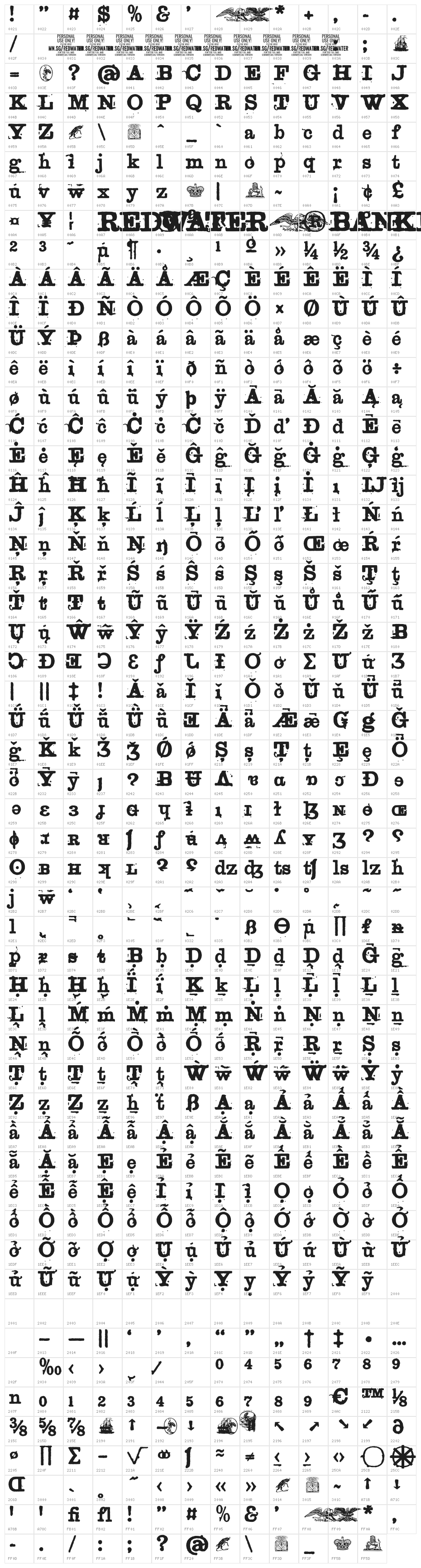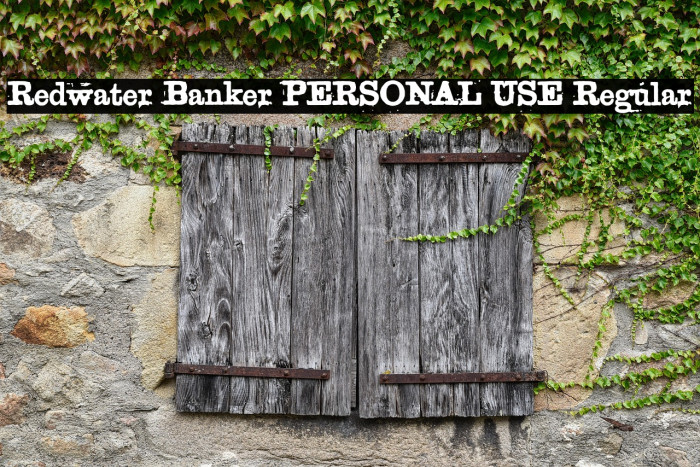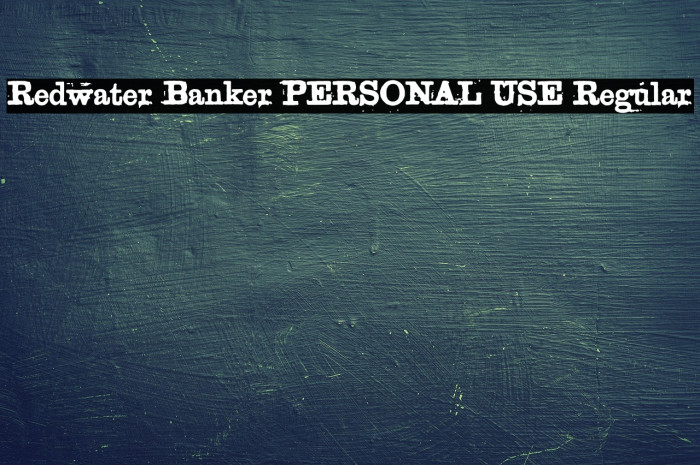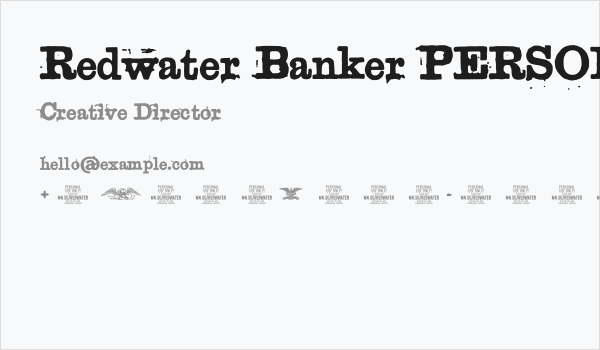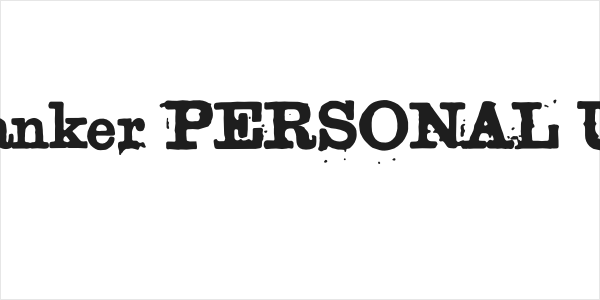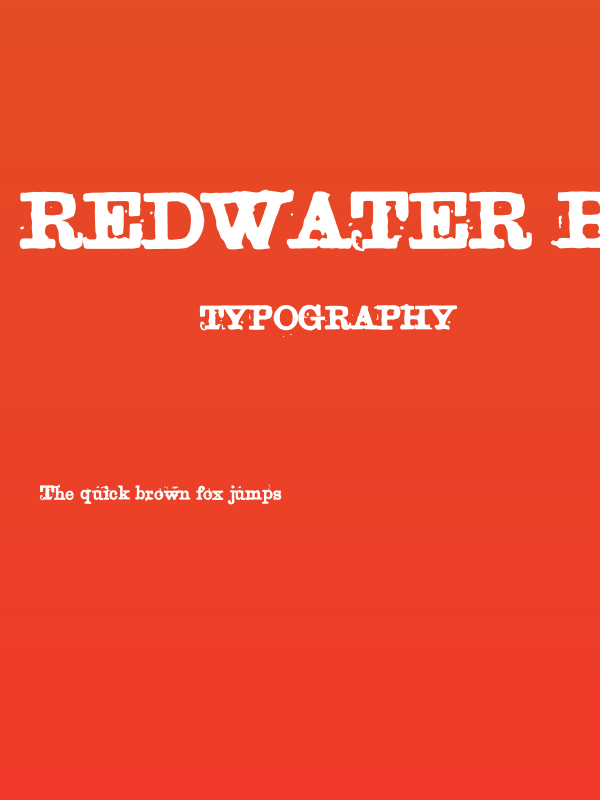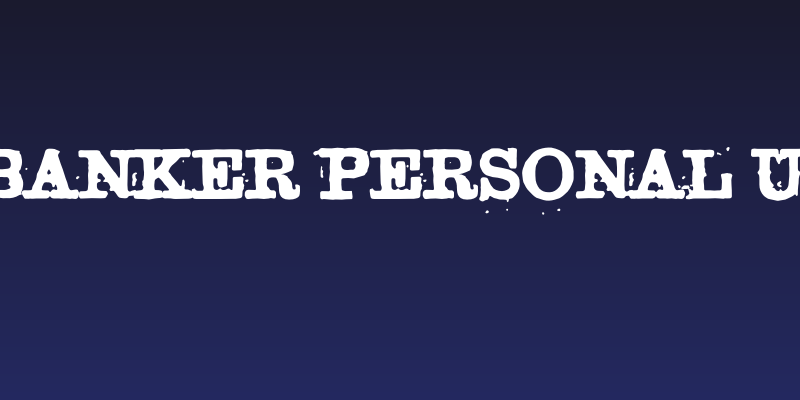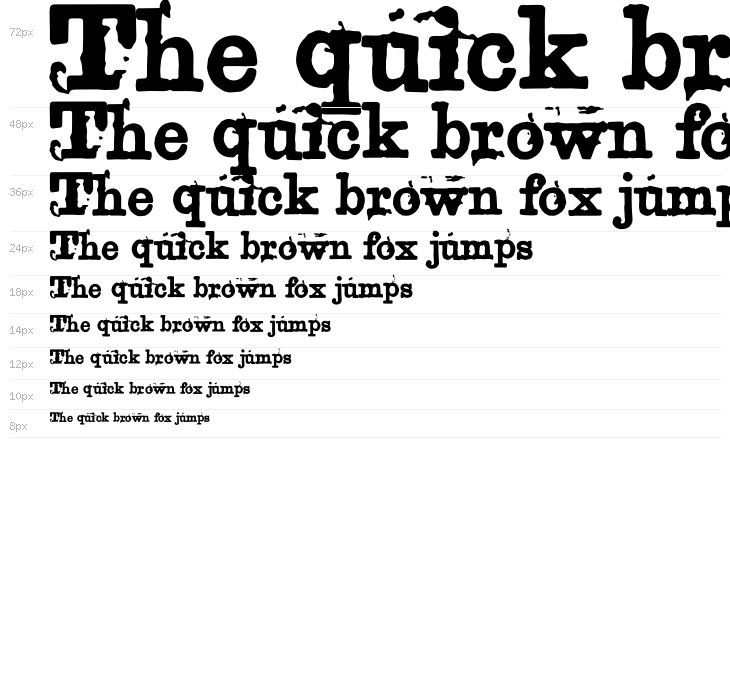
Redwater Banker PERSONAL USE Regular Font
Redwater Banker PERSONAL USE Regular Description
This font features a bold, distressed style with a vintage aesthetic. The characters have a rough, textured appearance, giving them a worn and weathered look. The uppercase and lowercase letters maintain a consistent design, with thick strokes and slightly uneven edges that add to the rustic charm. The numerals and special characters follow the same distressed theme, making the font suitable for projects that require a rugged, old-fashioned feel. The overall design is reminiscent of typewriter fonts, but with a unique, artistic twist that sets it apart.
| Use Case | Logos, Posters, Branding |
| Proposed Projects | Ideal for vintage-themed posters, logos, and branding materials that require a rugged, old-fashioned look. |